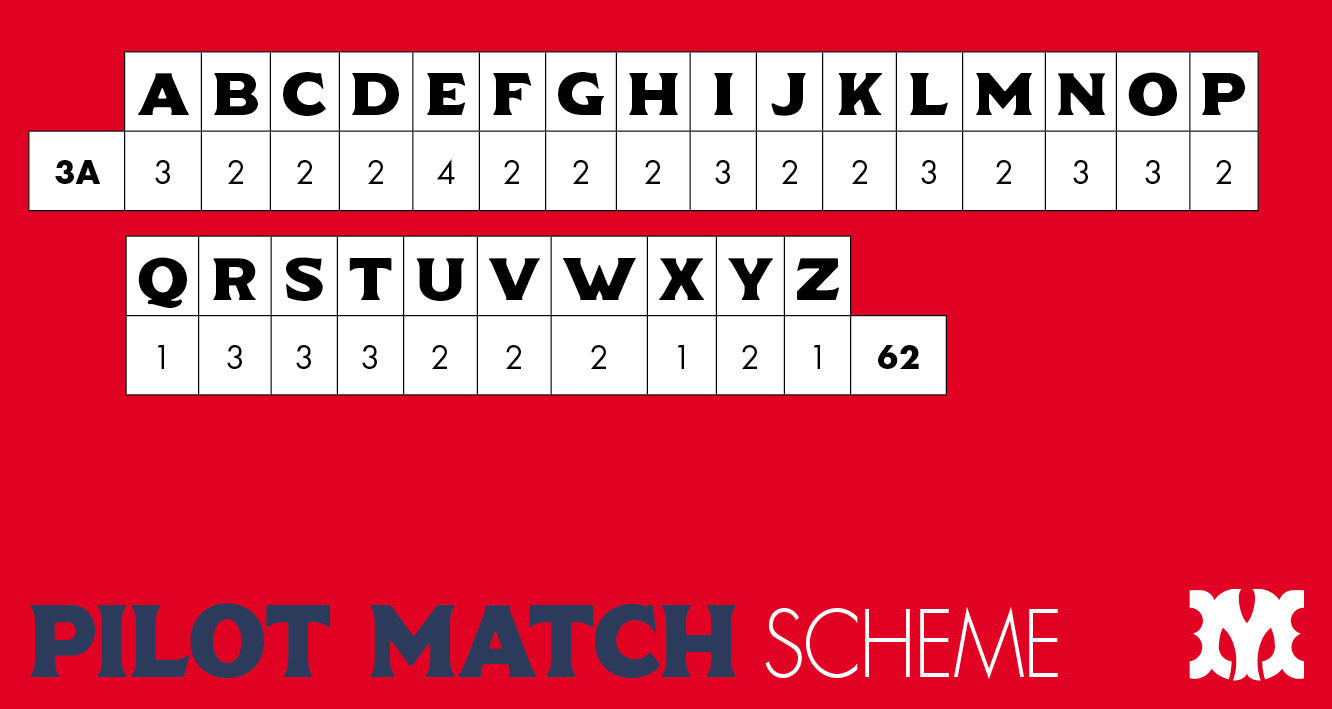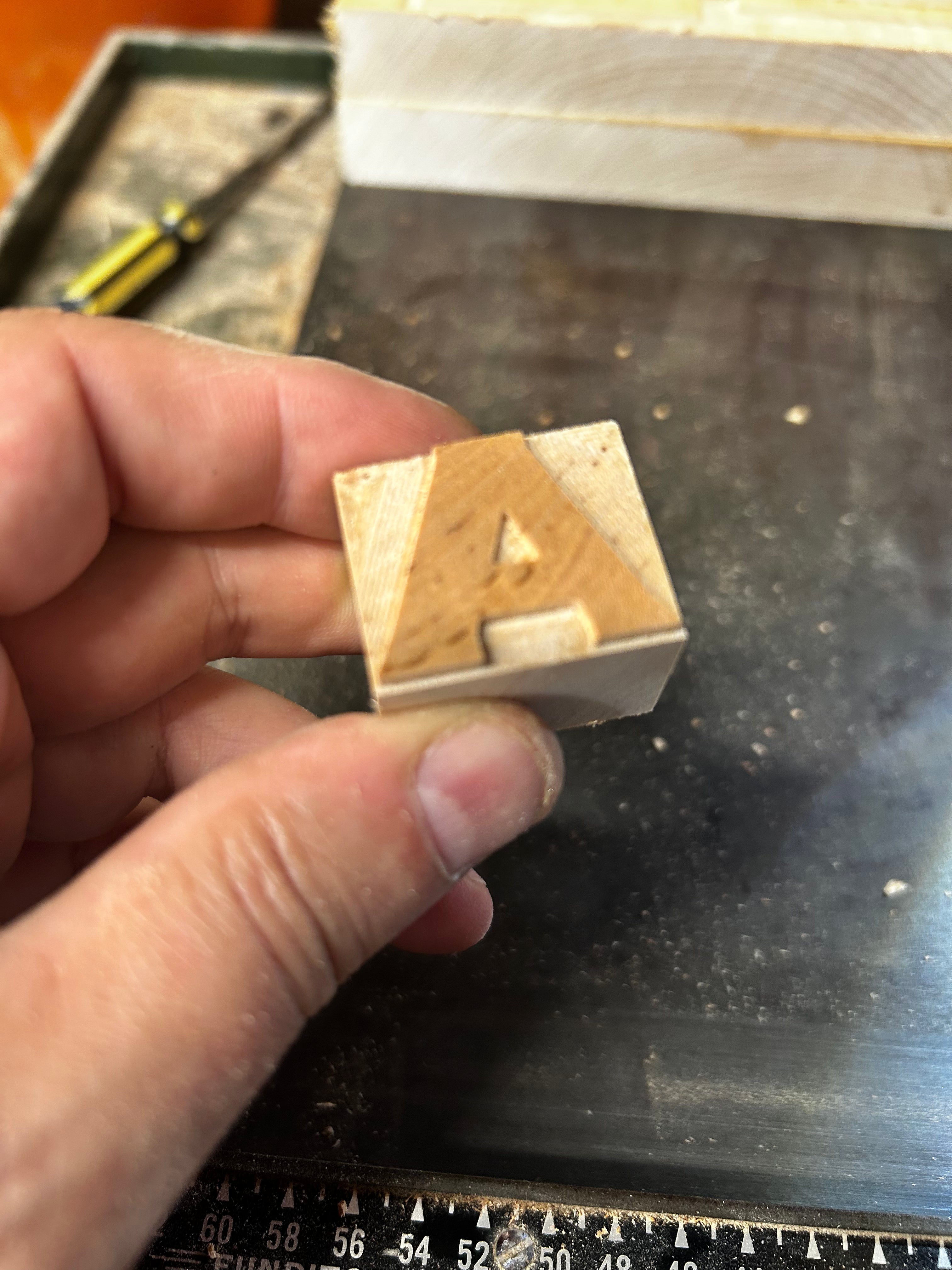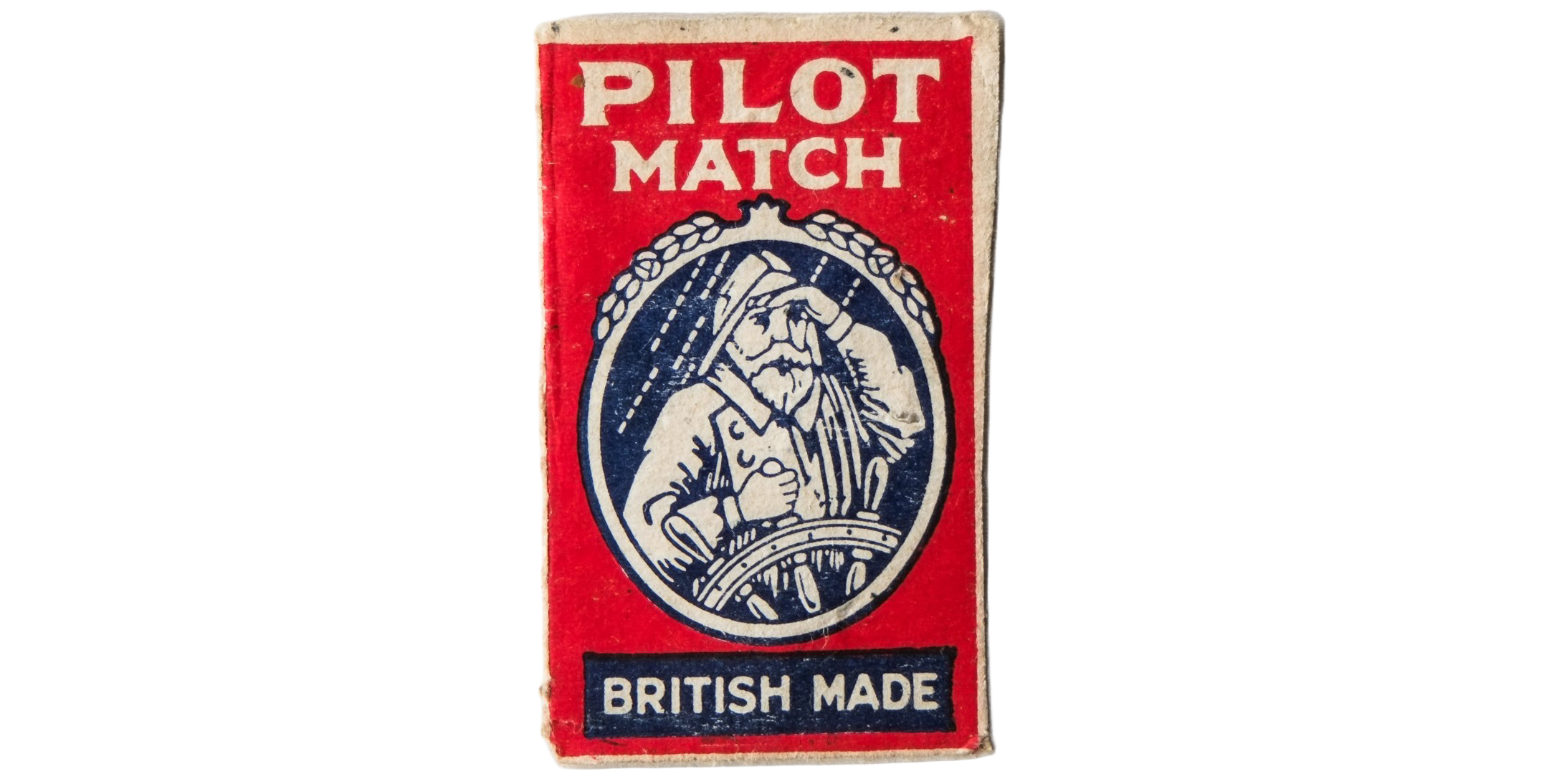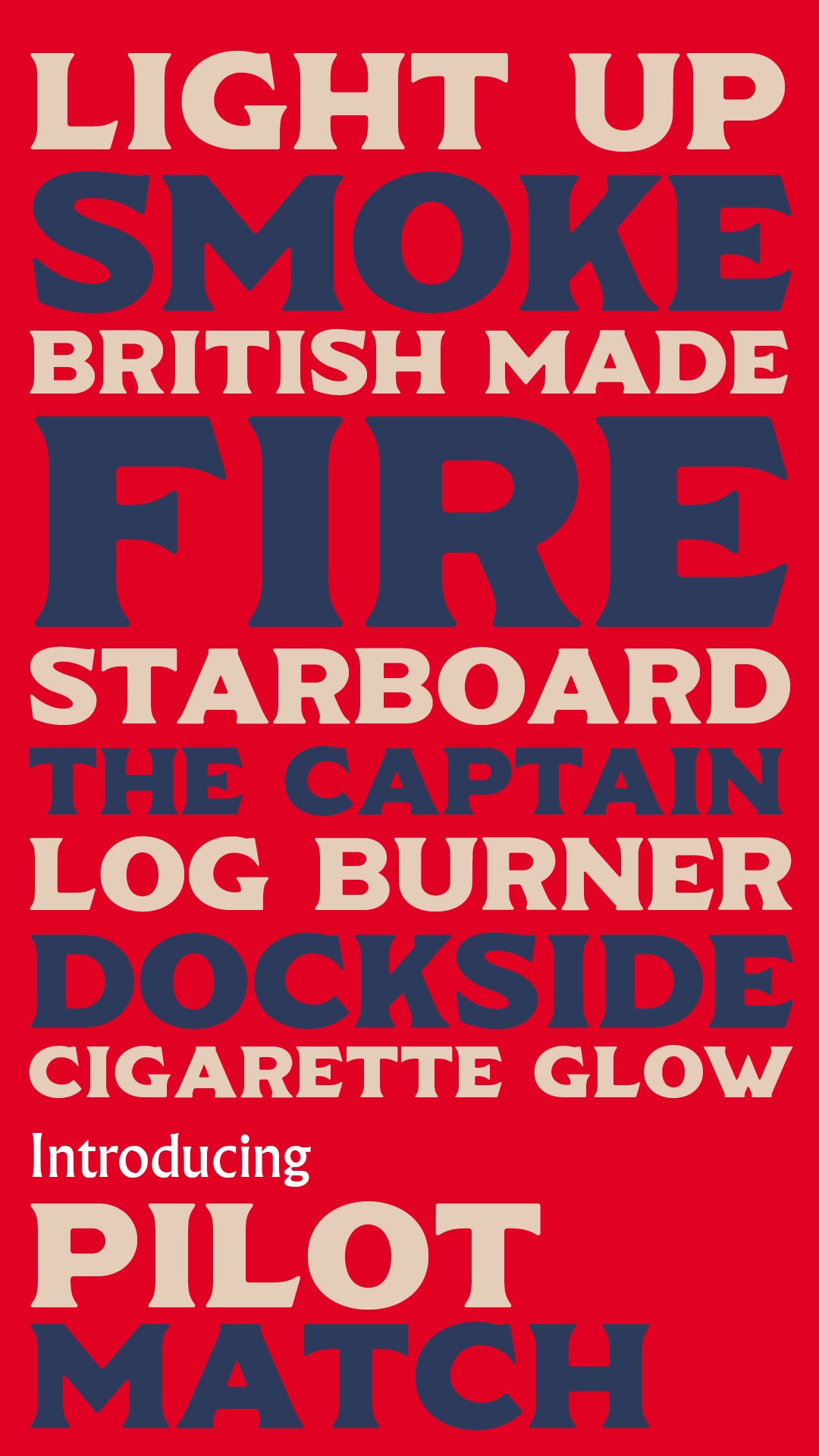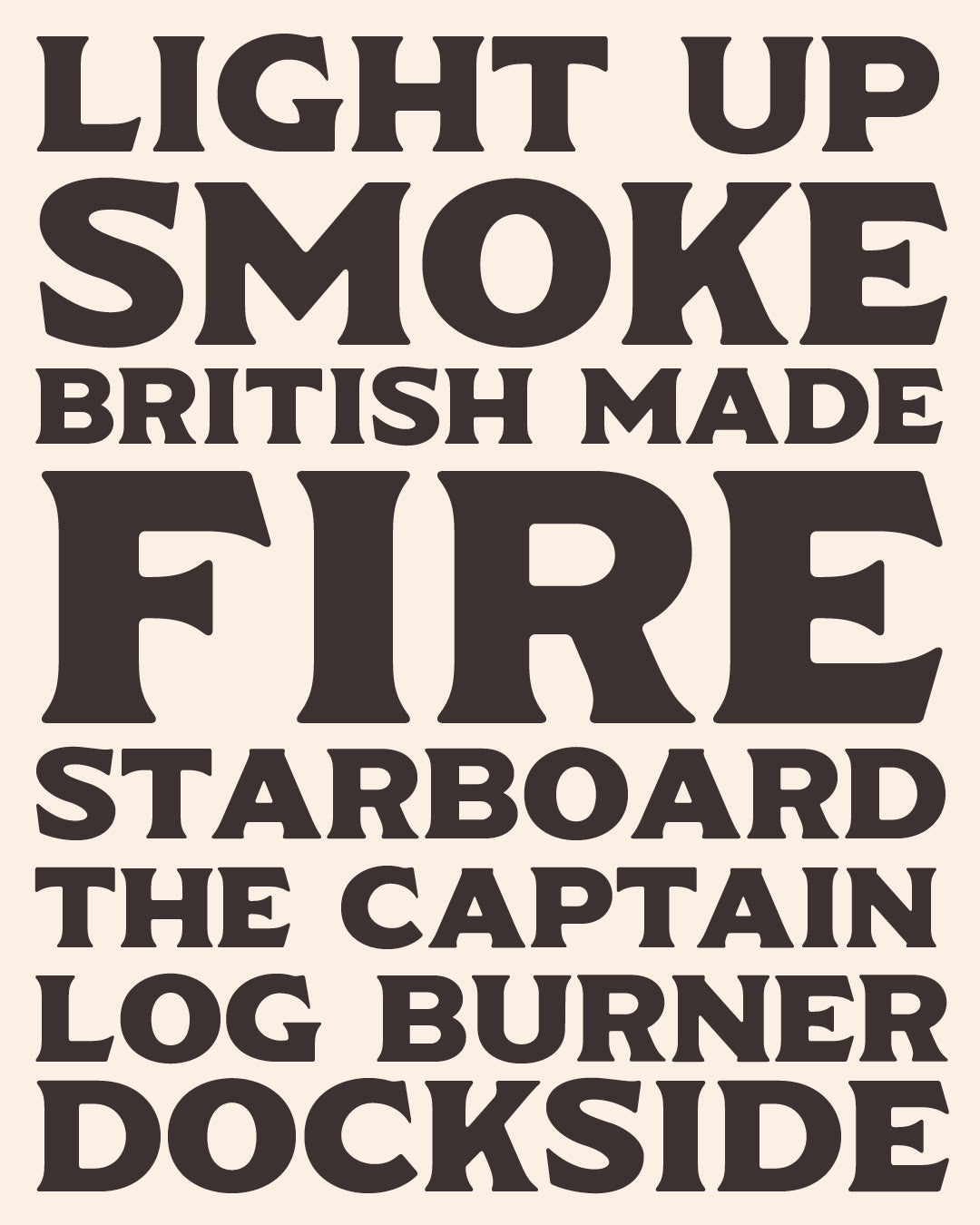
'Pilot Match' letterpress woodtype typeface
Introducing 'Pilot Match' - a typeface based on a vintage matchbox label
6 line (25.4mm), 10 line (42.3mm) and 16 line (67.7mm) sizes cut from end grain English hardwood using a combination of modern CNC technology and traditional hand woodworking tools (including an original printers saw), made to English type-high (0.918in or 23.3mm) within plus or minus 0.1mm tolerance, sealed with shellac and hand finished with a traditional polished printing surface.